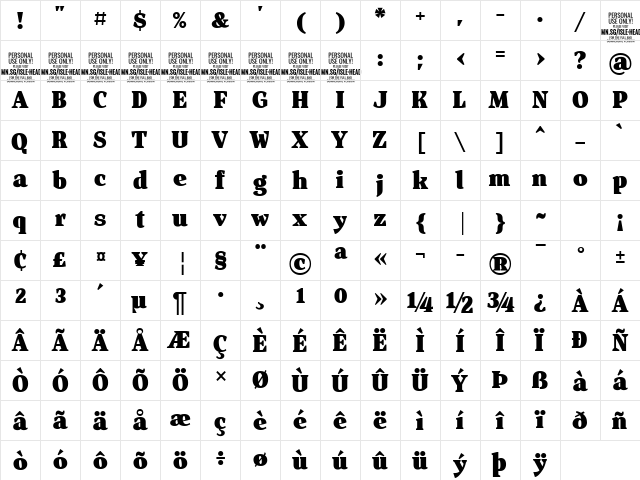
Isle Headline PERSONAL USE Black
Foundry: Mans Greback
Designer: Mans Greback
Design Context for Isle Headline PERSONAL USE
Isle Headline PERSONAL USE is a composed and adaptable typeface that performs quietly and consistently across a wide range of design contexts.
Who designed the Isle Headline PERSONAL USE Black font?